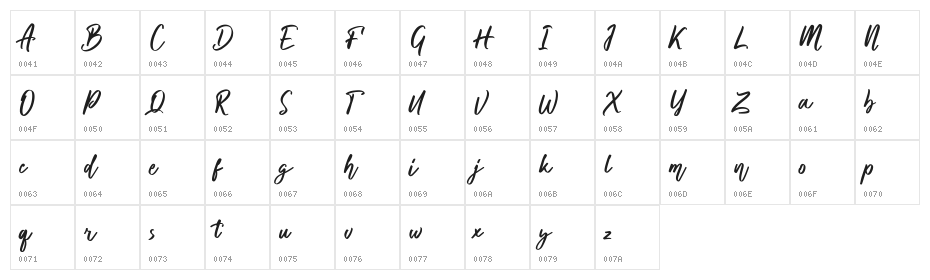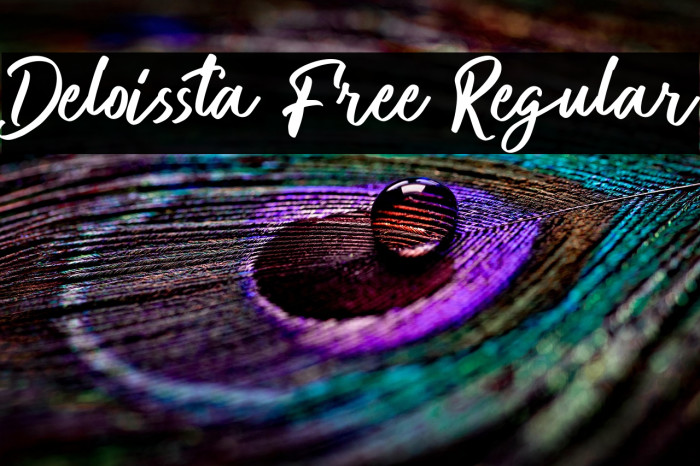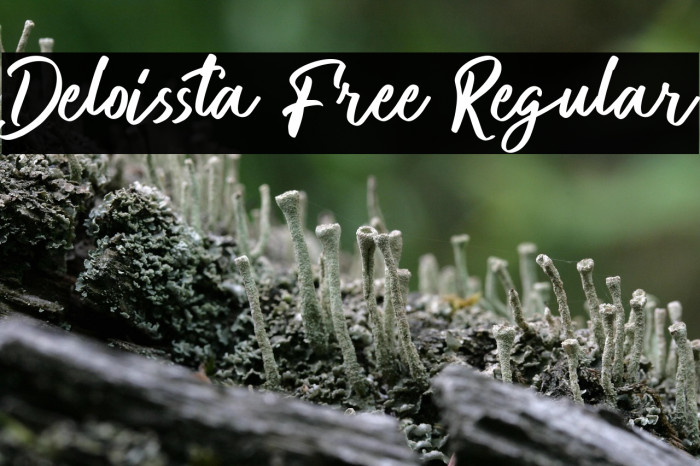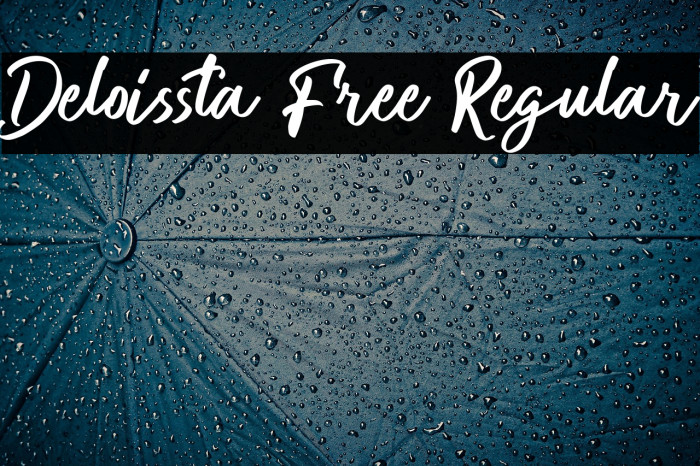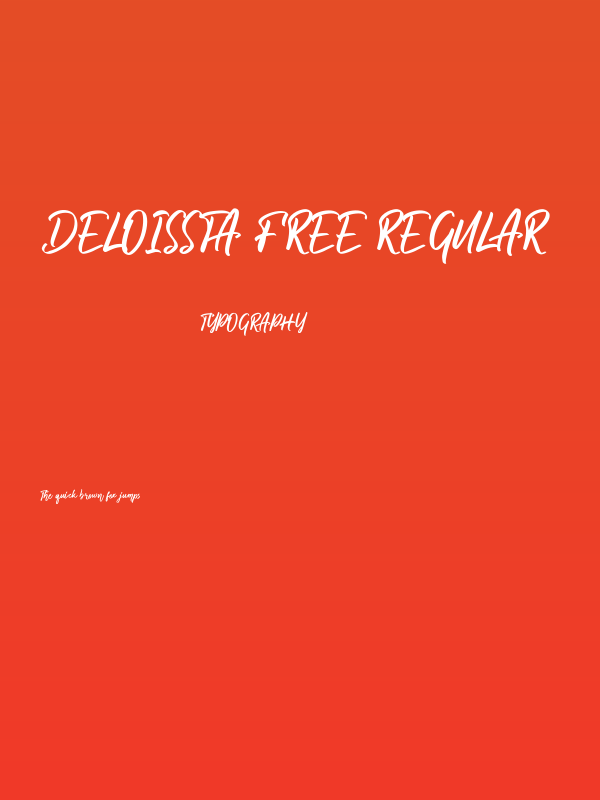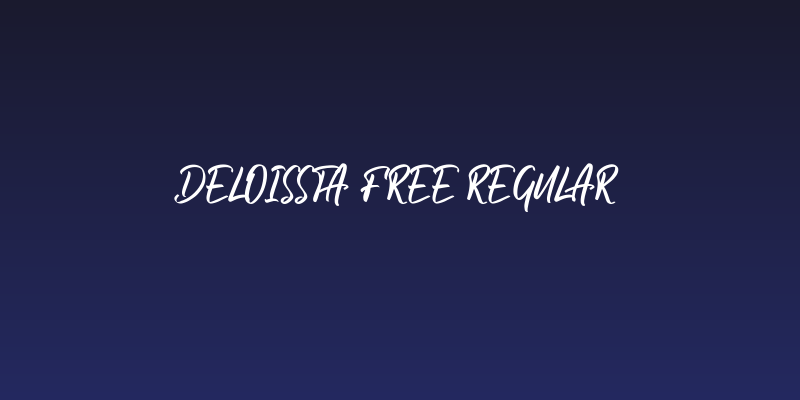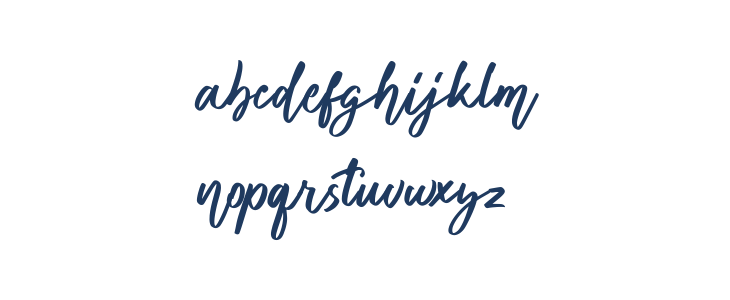
Deloissta Free Regular Font
Deloissta Free Regular Description
This font features a dynamic and expressive handwritten style, characterized by its flowing, cursive letterforms. The strokes are bold and confident, with a slight slant that adds to its energetic appearance. The uppercase letters are particularly striking, with exaggerated loops and curves that give them a distinctive flair. The lowercase letters maintain a consistent rhythm, complementing the uppercase with their smooth, connected strokes. This font's overall aesthetic is both playful and elegant, making it suitable for a variety of creative projects.